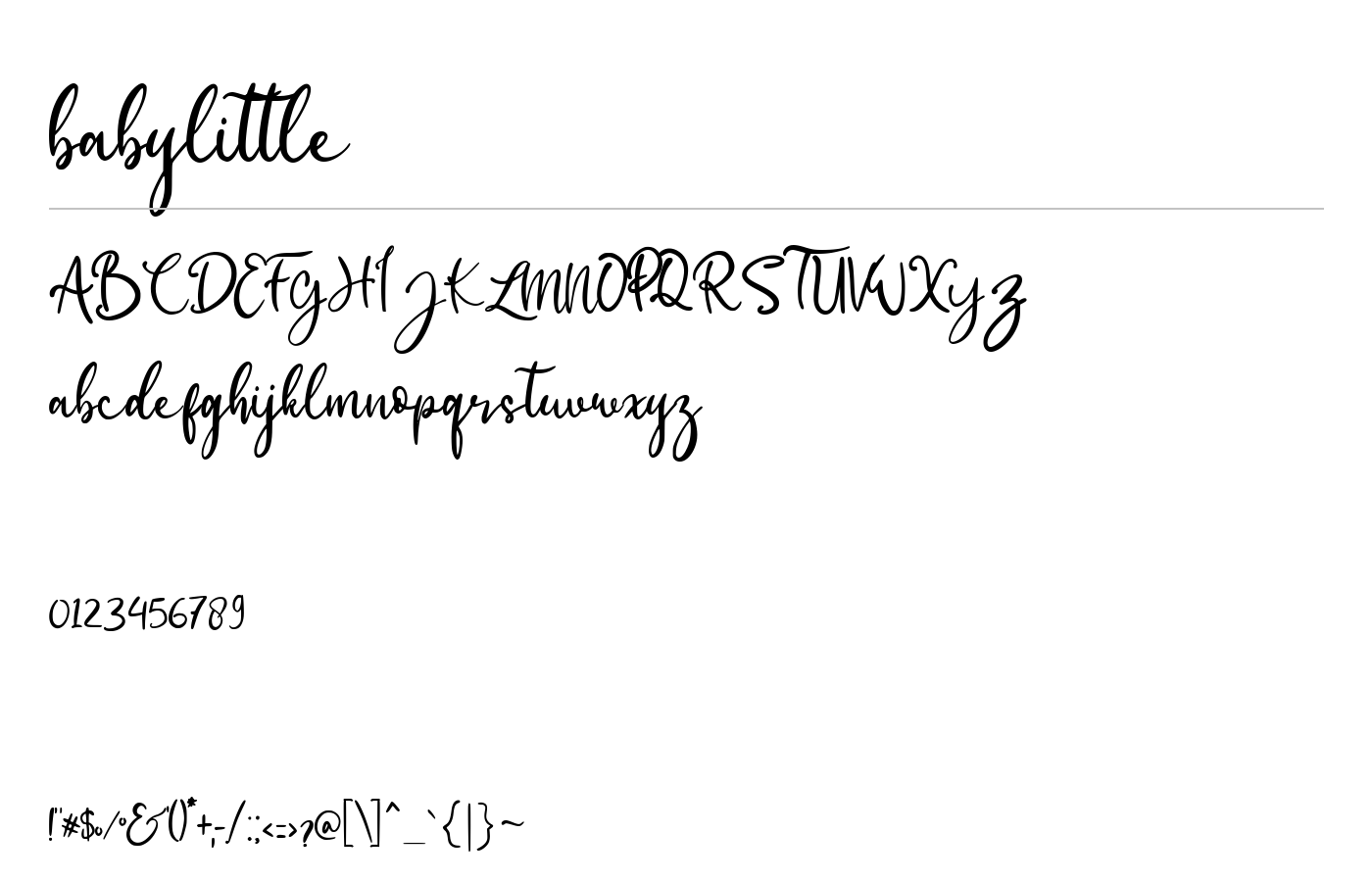
Babylittle is a charming script font with a delicate, hand-lettered style that combines elegance with a playful touch. Its smooth, flowing strokes and slightly condensed letterforms create a feminine and approachable look, making it ideal for branding, invitations, and creative projects that want to express warmth and personality. This font works beautifully for headlines and decorative text where a personal, stylish flair is desired.
| Font family | babylittle Font |
| Designer | JunCreative (Muhamad Junaid) @mjart96 |